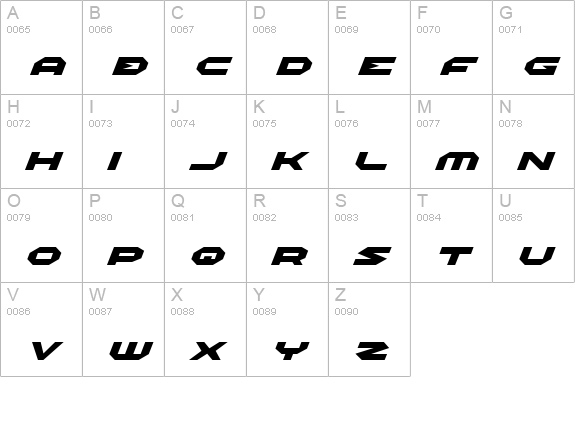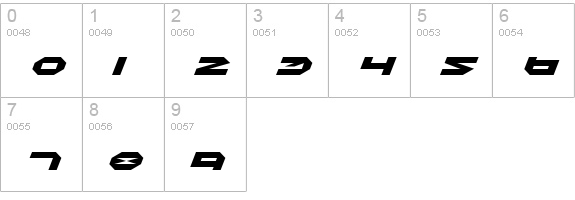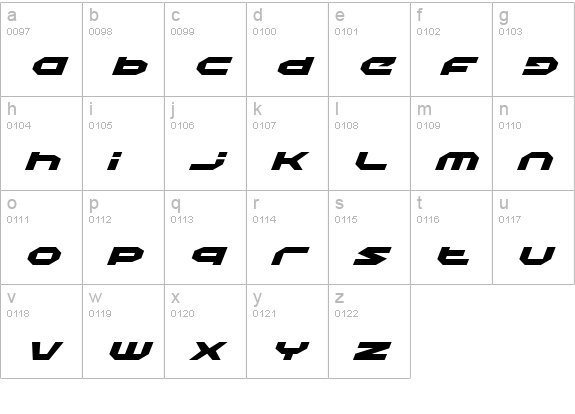
Halo Expanded Italic Font Details
Halo Expanded Italic is a distinctive, extended-width, italic variant in the Halo typeface family \xE2\x80\x94 well suited to design and typography projects.
Halo Expanded Italic font is a captivating and versatile typeface that effortlessly combines elegance with a touch of modernity. Its sleek and elongated letterforms exude a sense of sophistication, making it a perfect choice for projects that require a refined and contemporary aesthetic. This font's unique italicized design adds a dynamic flair to any text, capturing attention and emphasizing the message with its slanted angles. Whether used in headlines, logos, or body text, Halo Expanded Italic effortlessly stands out and leaves a lasting impression. What makes this font even more appealing is that it is free to download at FontsMarket.com. This means that you can easily access and use this exceptional typeface without any cost. Now, you can elevate your designs without worrying about breaking the bank. Halo Expanded Italic font boasts excellent legibility, ensuring that your message is conveyed clearly and effectively. Its well-defined characters maintain their integrity even at smaller sizes, making it a reliable choice for both digital and print projects. With its extensive character set, Halo Expanded Italic font offers a wide range of options for creative expression. Whether you're designing for a corporate brand, a fashion magazine, or a tech startup, this font will adapt and enhance your vision flawlessly. So, why wait? Take advantage of the opportunity to download Halo Expanded Italic font for free at FontsMarket.com. Elevate your designs and captivate your audience with this versatile and sophisticated typeface that effortlessly blends elegance and modernity.